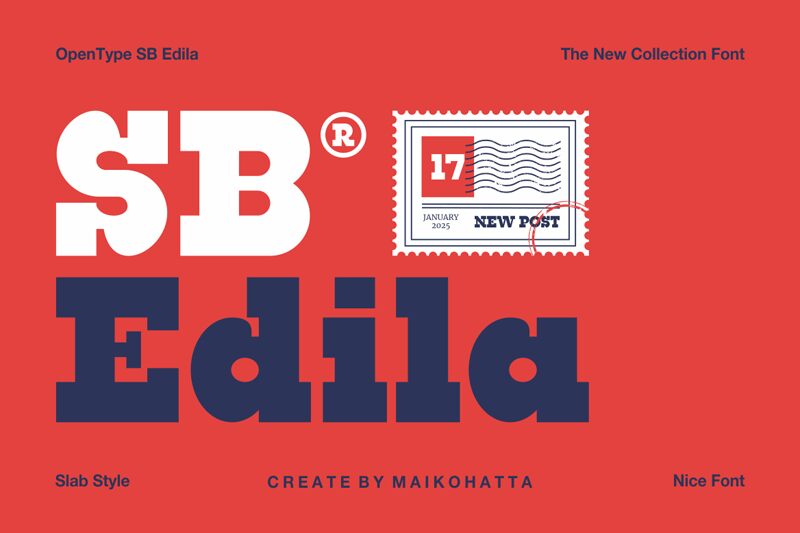
SB Edila font family by Gilang Ternadho is a free serif font family with 2 font styles. This typeface retains all the classical characteristics of serif fonts including stroke variations, thicks and thins, and more. Even with its simple design, it still produces complex letterforms with unparalleled finishes. While some letters have smooth and rounded corners that break the rigid rhythm, the terminals give a clean geometric order.
An uncompromising choice for headlines and logos, this serif font family really shines on printed branding materials like business cards, posters, and letterheads. It’s suitable for contemporary applications in editorial design, magazines, and web design.